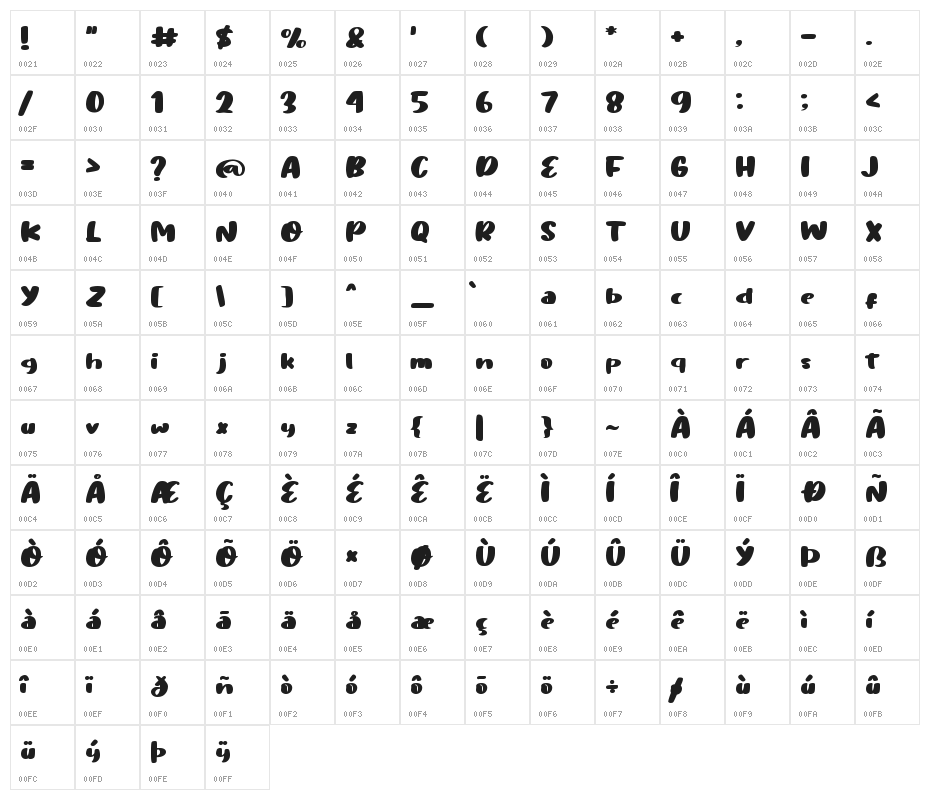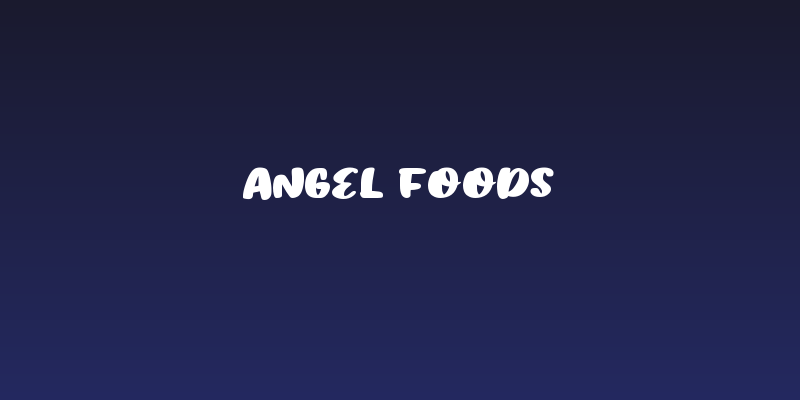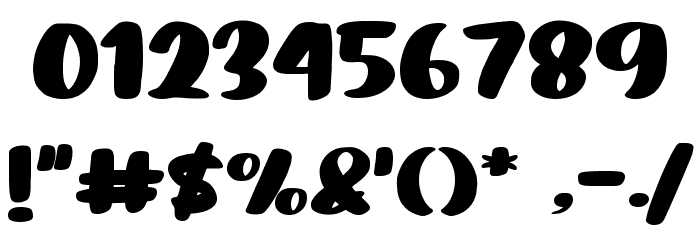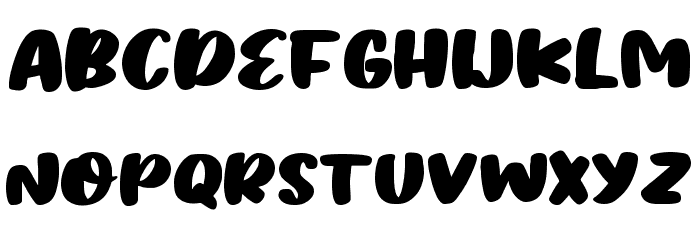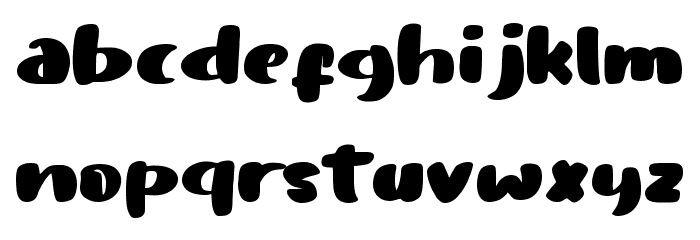
Angel Foods Font
Angel Foods Description
This font features a bold and playful style with rounded, thick strokes that give it a friendly and approachable appearance. The characters are slightly condensed, adding a sense of compactness while maintaining readability. The uppercase and lowercase letters are well-balanced, with a consistent stroke width throughout. The numbers and special characters follow the same design principles, ensuring uniformity across all glyphs. This font's whimsical nature makes it suitable for creative and informal projects, where a touch of fun is desired.
| Proposed Projects | Ideal for children's books, playful branding, posters, and social media graphics. |